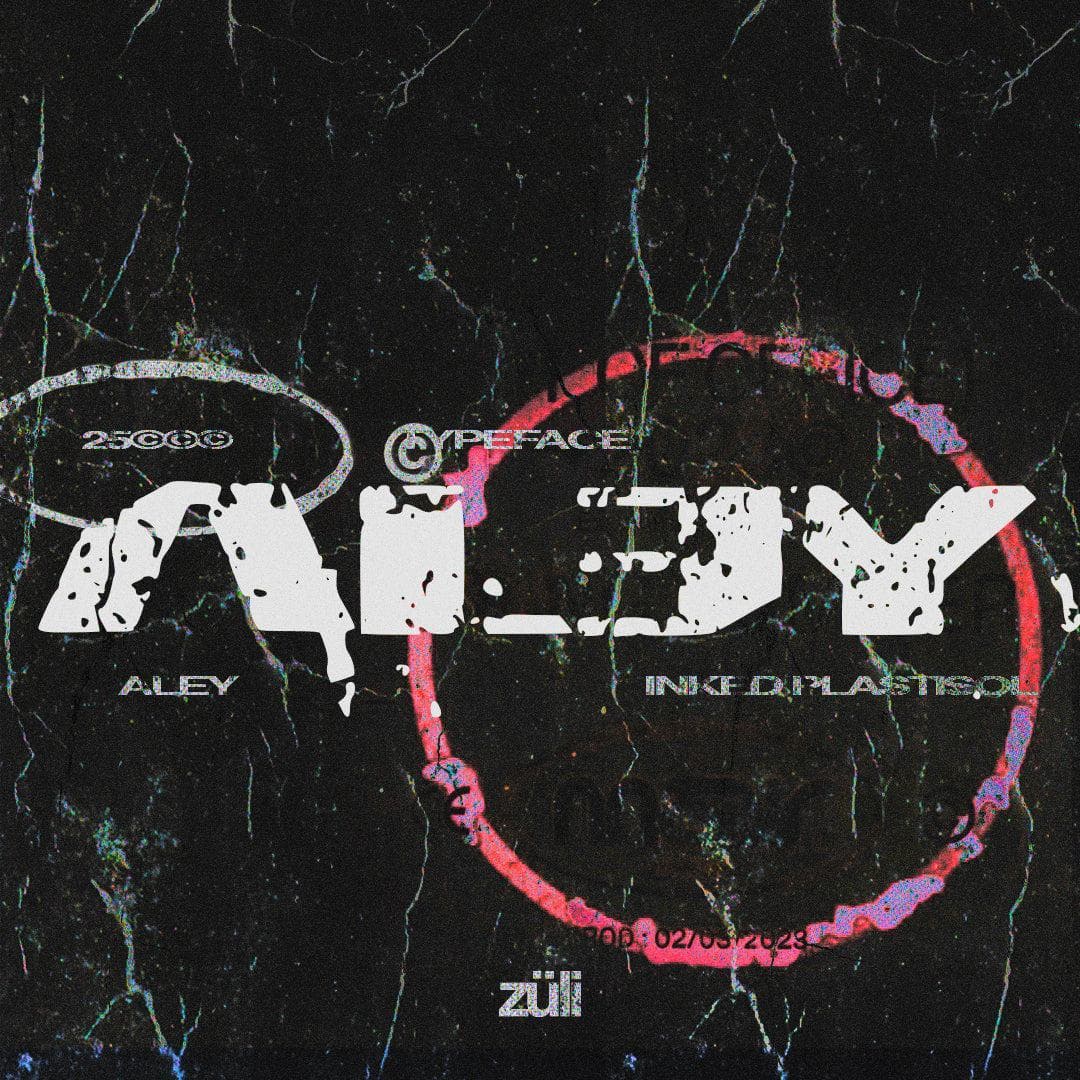
<p>Font Features:</p> <p>Realistic Plastisol Effect on the Typeface<br>Two Versions of The Typface on One File<br>All Letters and Numbers (A - Z & 0 - 9)<br>Perfectlly Applies on Every Design and Give it The Plastisol Effect<br>Files Included (TTF - OTF)<br>The Typeface is in Plastisol Style</p> <p>License Features:</p> <p>Typeface for Personal & Commercial Use<br>Only the Free Version (Limited) is for Personal Use<br>No Limitations on Full License<br>No Limitations on Installs Number</p>